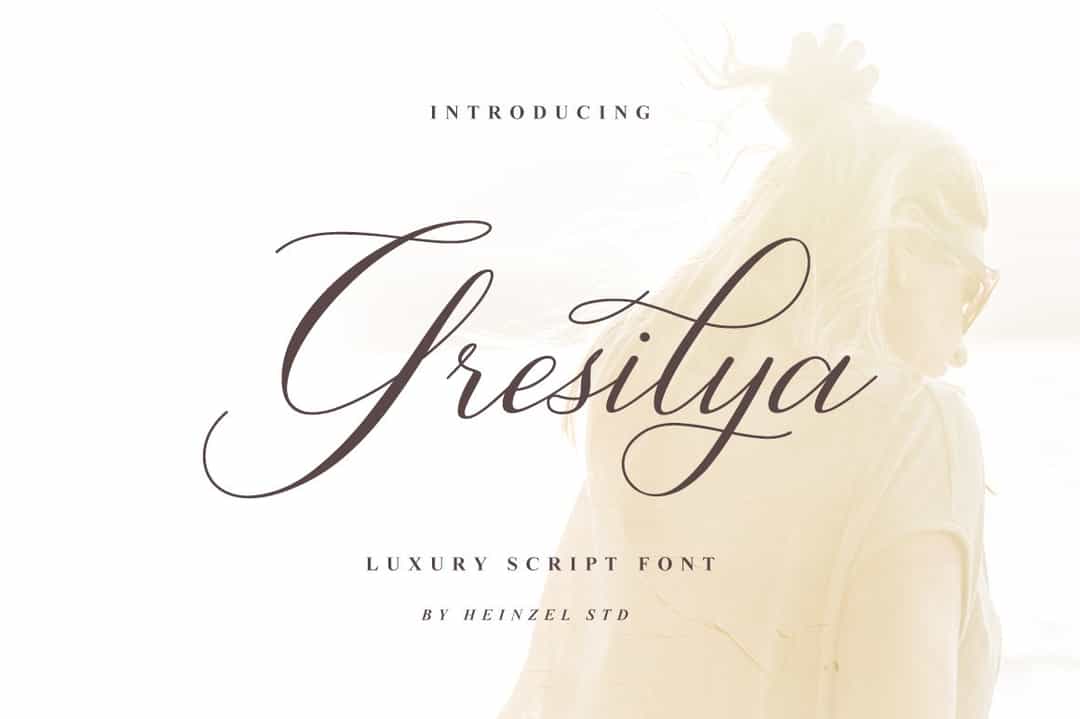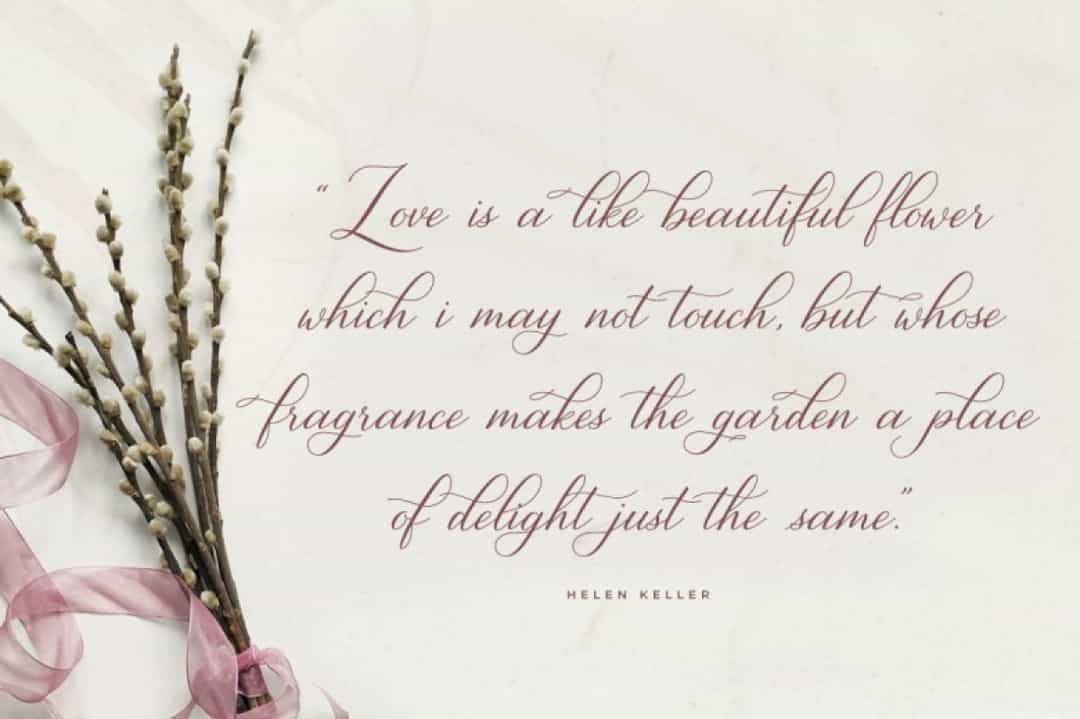
Gresilya Font is an elegant and flowing script typeface, PUA encoded to make use of all its glyphs easier. Featuring smooth lines and gorgeous alternative glyphs that will elevate any design to new levels! Fall in love with Gresilya Font and take your designs to new heights!